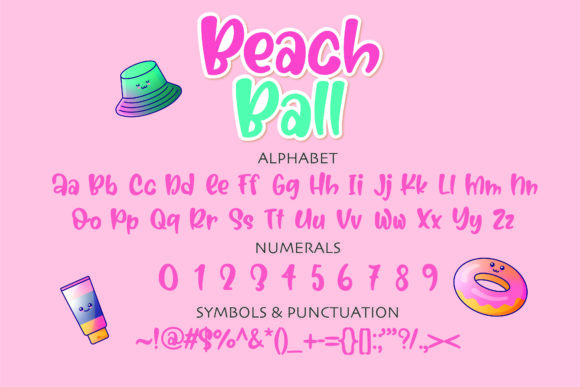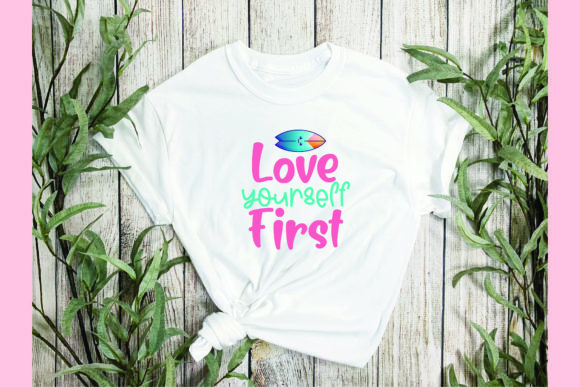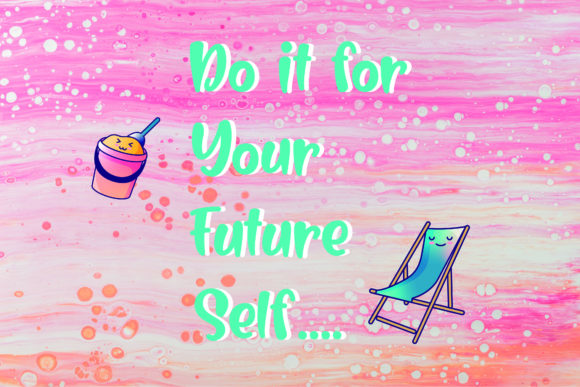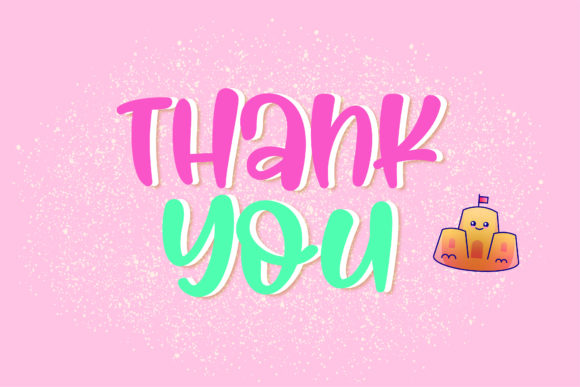
When Words Come to Life
Do you remember the thrill of blowing up a beach ball and watching it soar through the air, its colorful patterns dancing in the sunlight? That same sense of joy and carefree abandon can be captured in the perfect font – and for designers, Beach Ball Font is just the ticket.
This fun and quirky display font embodies the spirit of playfulness and authenticity, making it the perfect choice for any children’s activity or school project. Its unique character is not only eye-catching but also versatile, allowing designers to bring their creative vision to life in a way that’s both engaging and memorable.
With Beach Ball Font, designers can tap into the emotions and experiences of their audience, creating a connection that goes beyond mere words. Whether you’re working on a children’s book, a marketing campaign, or a school project, this font is sure to bring a smile to your face and a spring to your step.
Beach Ball Font Key Features
- Size and Resolution: The font is designed to work well at medium to large sizes, with optimal results at 12-48 points and resolutions of 72-300 DPI.
- Unique Characteristics: Beach Ball Font features a playful, hand-drawn design with rounded shapes and soft edges, perfect for creating a fun and carefree atmosphere.
- Font Style: The font is available in a single style, with a mix of uppercase and lowercase letters, numbers, and punctuation marks.
- Font Metrics: The font has an x-height of 500-600 units, making it suitable for use in various digital and print applications.
Beach Ball Font Review
At first glance, the Beach Ball Font seems like a fun and playful addition to any design project. ✨ The rounded shapes and bold lines give it a carefree, summery vibe that’s perfect for beach-themed designs or kids’ content. The font is also highly customizable, allowing designers to easily adjust the color and size to fit their needs.
One of the standout features of the Beach Ball Font is its versatility. ✨ It can be used for a variety of applications, from logos and headings to body text and even social media graphics. The font is also relatively easy to read, even in smaller sizes.
- ⚠️ Limited range of styles: The Beach Ball Font is primarily a sans-serif font, which may limit its use in more formal or professional designs.
- ⚠️ Potential for overuse: The font’s playful nature may lead designers to overuse it, resulting in a design that feels too casual or juvenile.
- ⚠️ Limited support for certain languages: The font may not include the necessary characters or glyphs to support certain languages or scripts.
Overall, the Beach Ball Font is a solid choice for designers looking to add a touch of whimsy to their projects. While it may have some limitations, its versatility and customizability make it a great option for a wide range of designs.
To get the most out of the Beach Ball Font, try using it for:
- Summer-themed designs
- Children’s party invitations
- Beach or pool party graphics